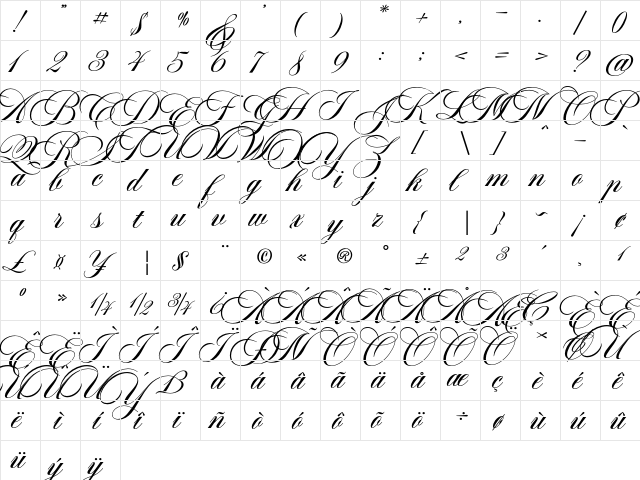
Aston Script Pro Bold Bold Font Preview
Design Context for Aston Script Pro Bold Typeface
Aston Script Pro Bold flows with the natural rhythm of handwritten lettering, making it ideal for designs that call for warmth and personal expression. Its bold stroke weight gives it real presence on the page.
Font Pairing: Combine Aston Script Pro Bold with a simple geometric sans for maximum contrast — the tension between flowing curves and clean structure is a classic typographic pairing.
Pro Tip: Pair Aston Script Pro Bold with a clean sans-serif for supporting text. The contrast between fluid script and geometric structure creates an elegant typographic hierarchy.